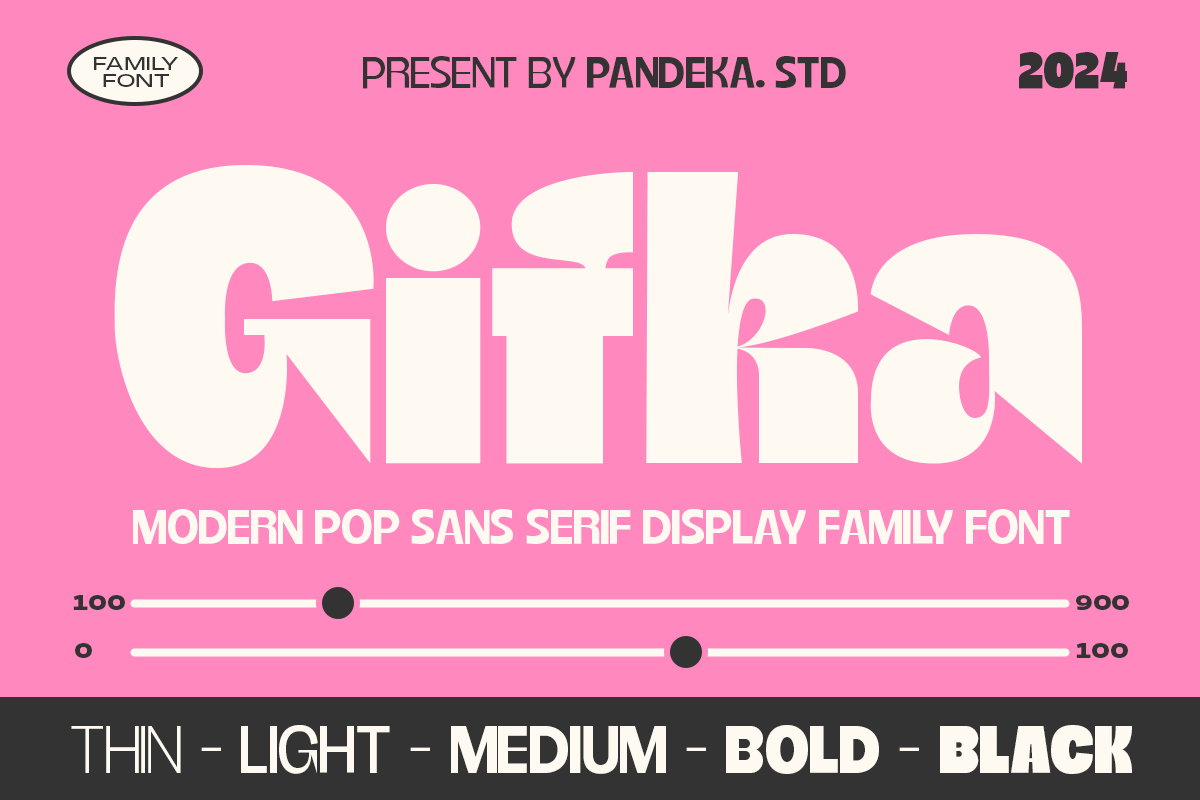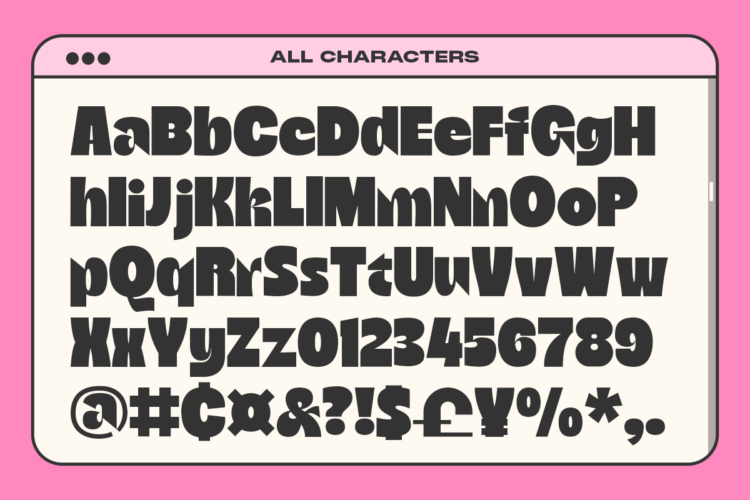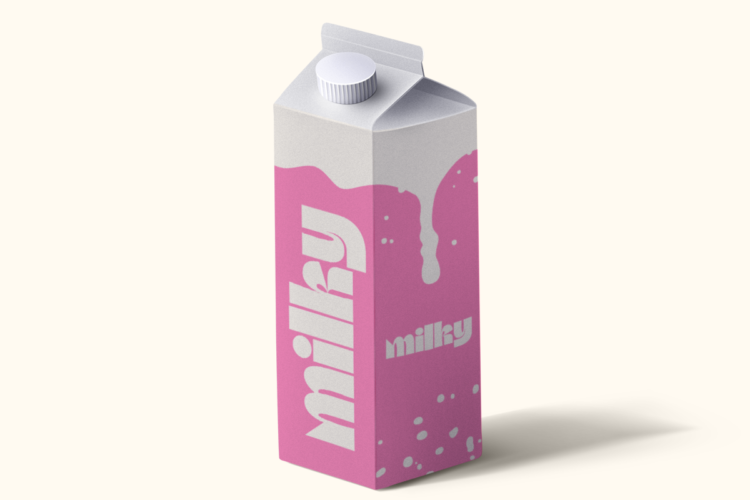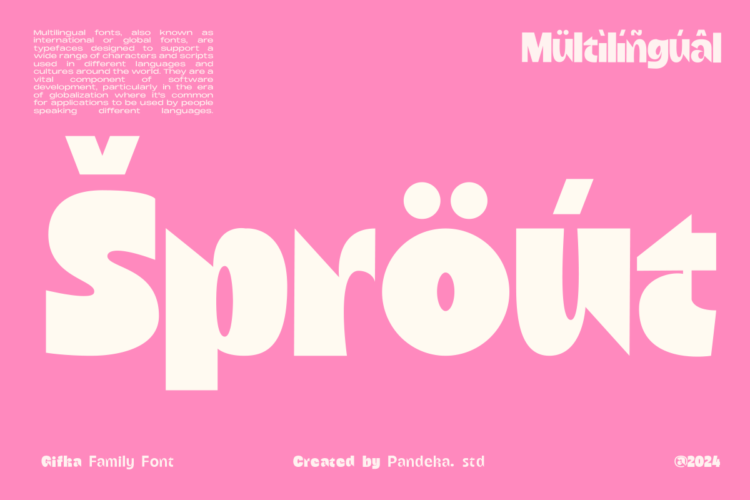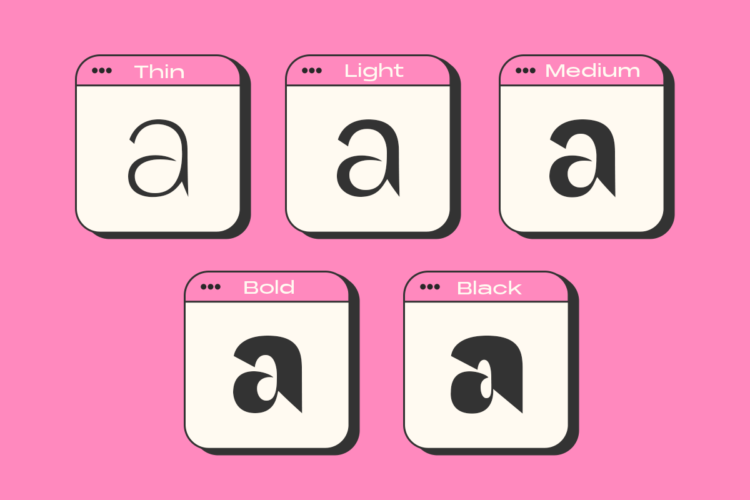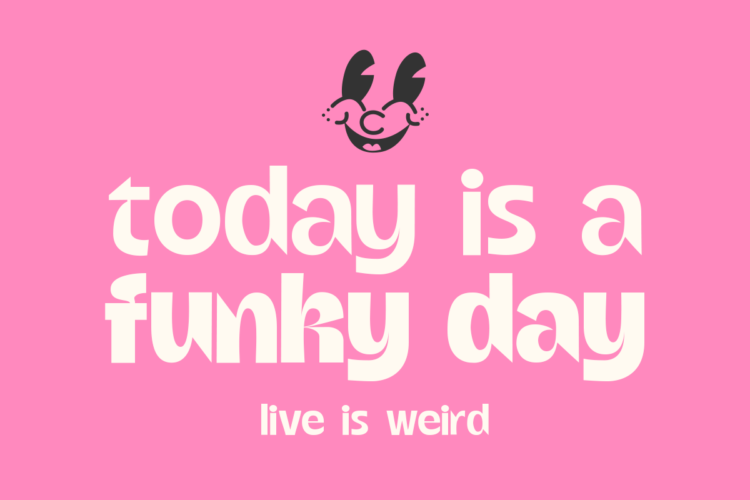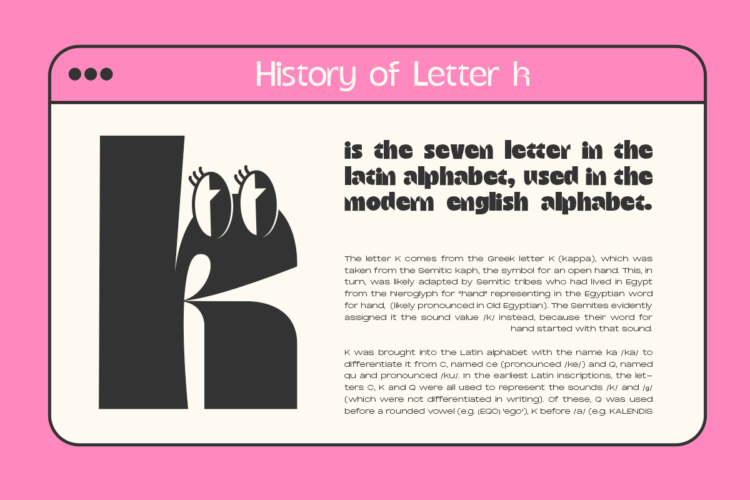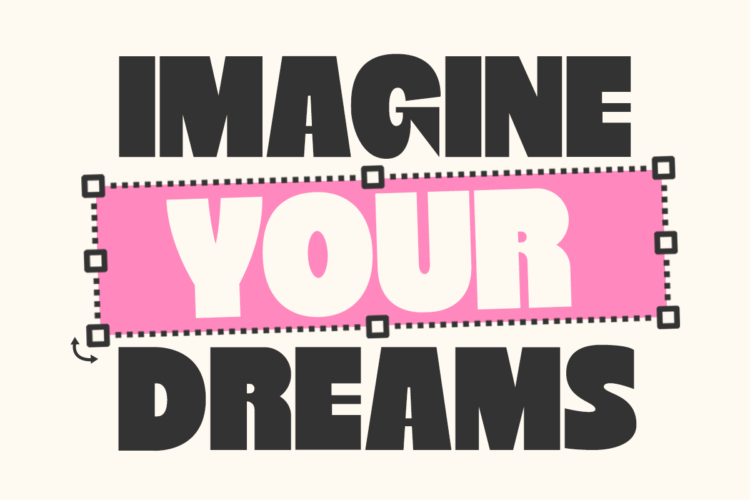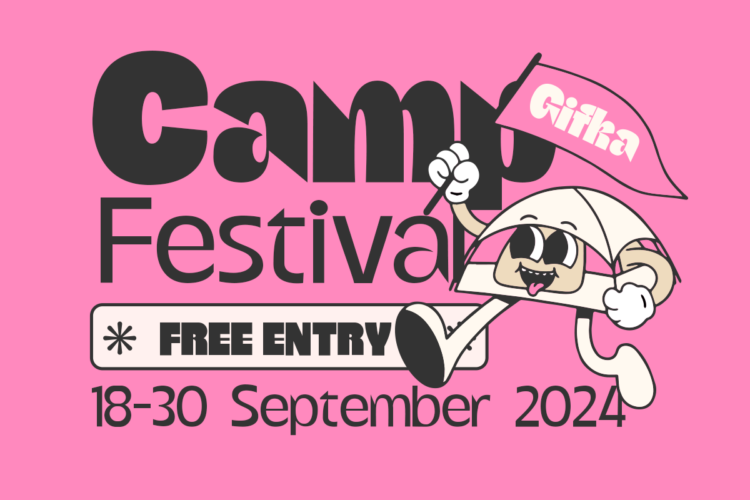
Gifka Thin
Gifka Light
Gifka Medium
Gifka Bold
Gifka Black
Introducing Gifka – A fun and modern pop font!
Gifka is inspired by today’s vibrant designs and brings a fresh, energetic vibe to your projects. With its unique style, Gifka is perfect for adding a special touch to your work.
Gifka comes in 5 font styles (Thin, Light, Medium, Bold and Extra Bold), Its weight is superior in posters, social media, headlines, magazine titles, clothing, large print formats – and wherever you want to be seen.
• Thin, Light, Medium, Bold and Extra Bold
• Unique letterforms
Gifka – Pop Modern Family